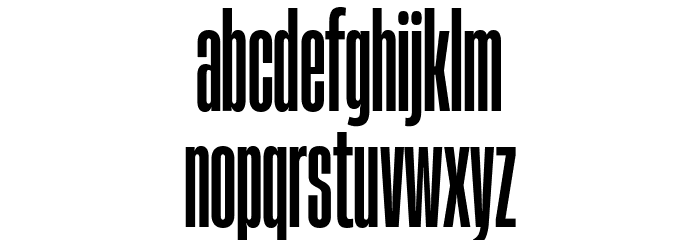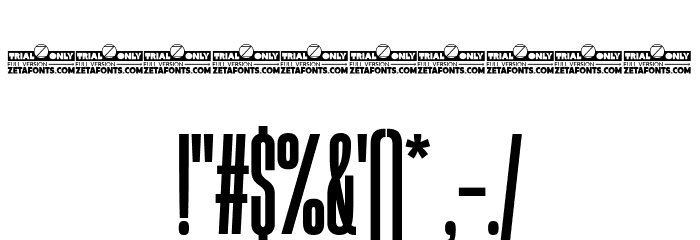
Heading Now Trial 16 Bold Font
This font exhibits a bold and impactful design, characterized by its tall and narrow letterforms. The uppercase and lowercase letters maintain a consistent height, contributing to a cohesive and structured appearance. The font's vertical emphasis is complemented by its tight character spacing, which enhances its strong and assertive presence. The strokes are uniform in thickness, providing a medium contrast that balances readability with visual interest. Its modern style makes it suitable for contemporary design projects, where clarity and boldness are essential.
A bold, tall, and narrow font with medium contrast and tight spacing, ideal for modern designs.
- Proposed Projects: This font is perfect for headlines, posters, and branding projects where a strong and modern aesthetic is desired.
- Character Spacing: Tight